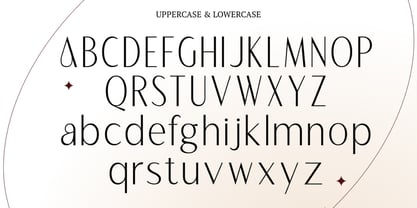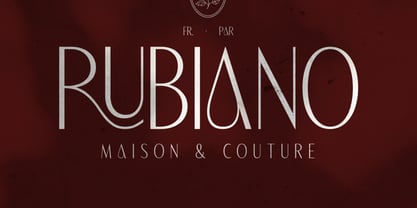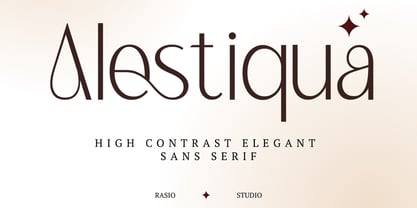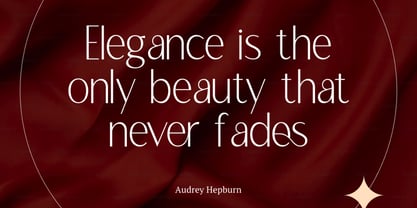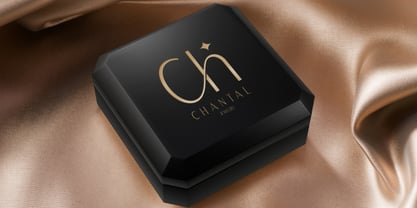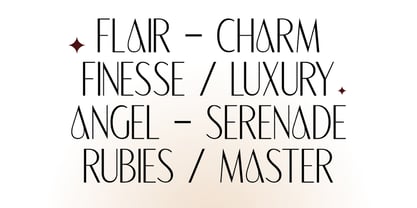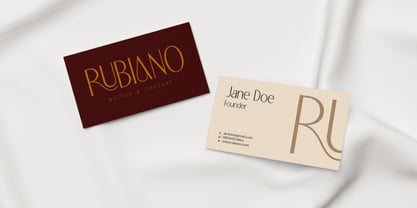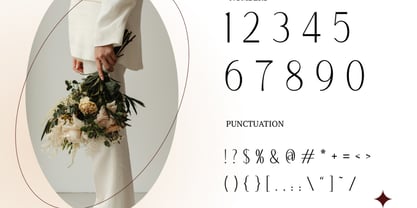
Alestiqua
by Rasio Studio
The Alestiqua Font Family was designed by Fajar Indra and published by Rasio Studio. Alestiqua contains 1 styles. More about this family
Alestiqua is a high contrast elegant sans serif font that blends sophistication with modern style. Featuring graceful curves, sharp contrast, and refined letterforms, this typeface is perfect for creating timeless and luxurious designs. Its unique details make it ideal for wedding invitations, fashion editorials, beauty branding, logos, and premium packaging. Relevance and Use Cases is Perfect for Luxury branding, high-end logos, fashion magazines, beauty editorials, lifestyle editorials, wedding invitations, elegant stationery, cosmetics packaging, jewelry packaging, boutique packaging, minimalist websites, stylish portfolio showcases, premium social media graphics, content branding, event posters, classy flyers, corporate identity.
Designers: Fajar Indra
Foundry: Rasio Studio